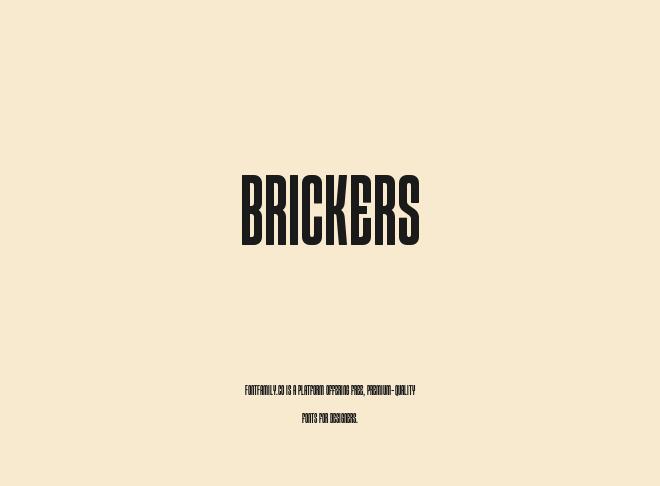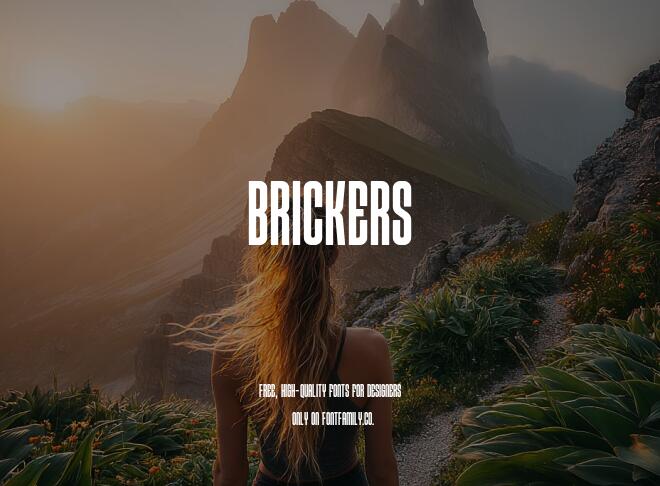
Brickers Font
Brickers Font is a unique, playful, and rustic typeface that brings a retro vibe to your design projects. With its chunky and bold characters, it's perfect for creating standout headers, posters, and signage. The font's rustic and playful look makes it an excellent choice for designs aiming for a vintage or old-school atmosphere. Compared to other fonts, Brickers Font stands out with its unique character design, making it a must-have in every designer's toolkit. Its versatility allows it to be used in a wide range of applications, from branding projects to social media graphics. With its bold and distinctive style, Brickers Font is guaranteed to make your designs pop and leave a lasting impression.
Author | Creative Design Foundry |